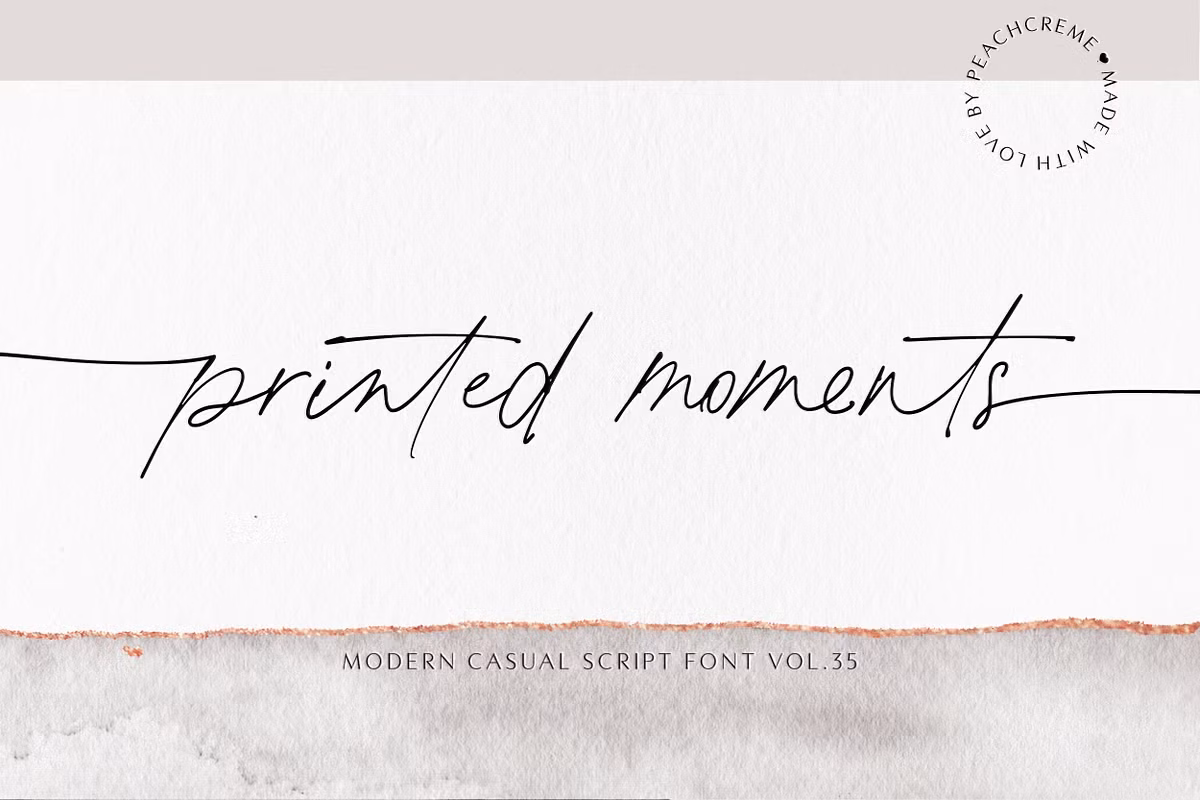
printed moments//modern casual font Free Download
Printed Moments // Modern Casual Font Free Download is a relaxed and stylish typeface that combines a modern feel with a casual, handwritten look. Featuring smooth curves and a friendly, approachable design, Printed Moments is perfect for creating personal branding, social media graphics, greeting cards, invitations, and any project that needs a laid-back yet contemporary touch.
Printed Moments // Modern Casual Font Free Download brings a fresh, creative vibe to your typography, making it ideal for designs that need a personal, easygoing feel. Whether you're working on a custom logo, a warm invitation, or a unique social media post, this font adds an effortless charm to your projects. Download it today and give your designs a modern, casual flair with Printed Moments!